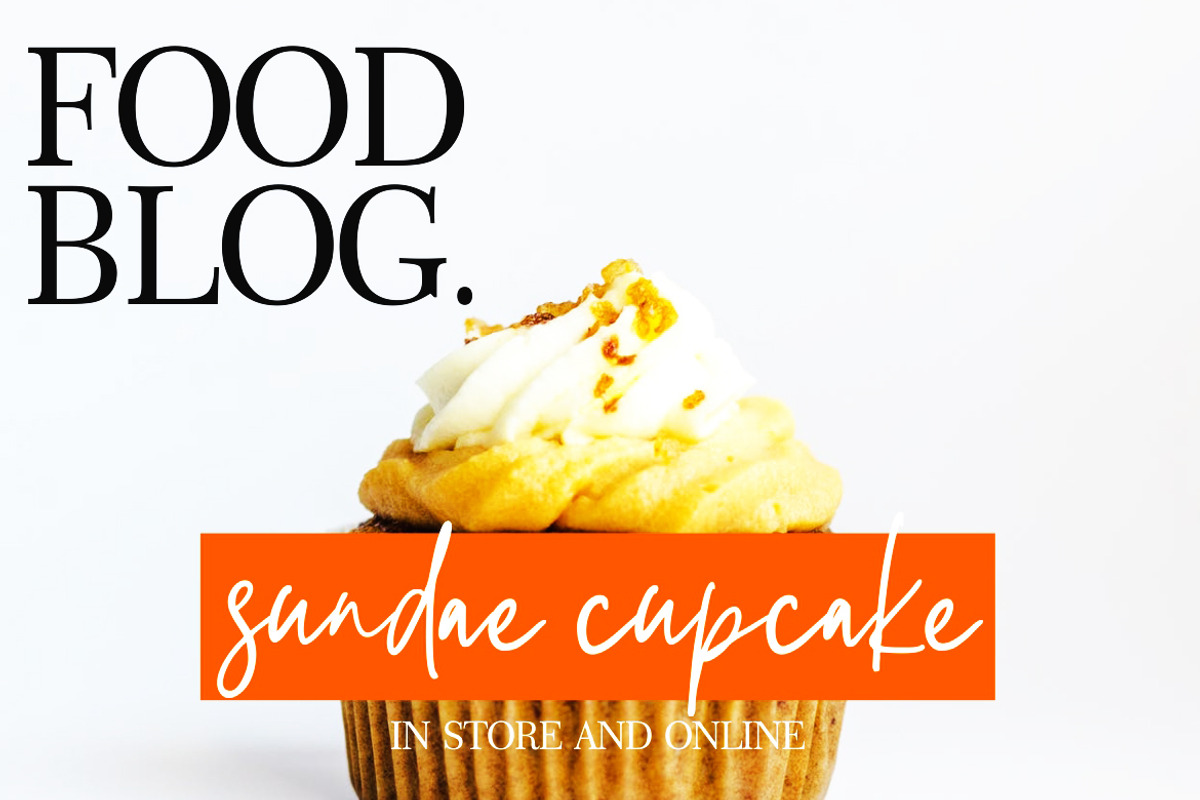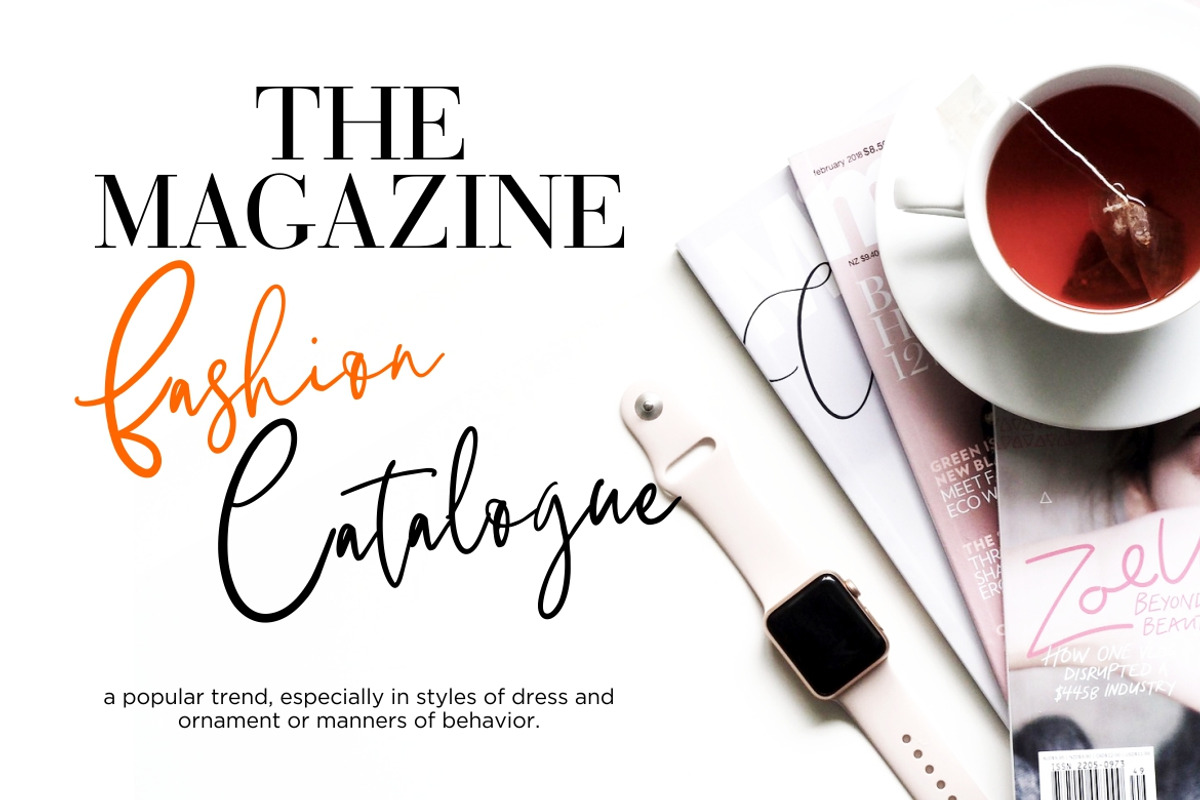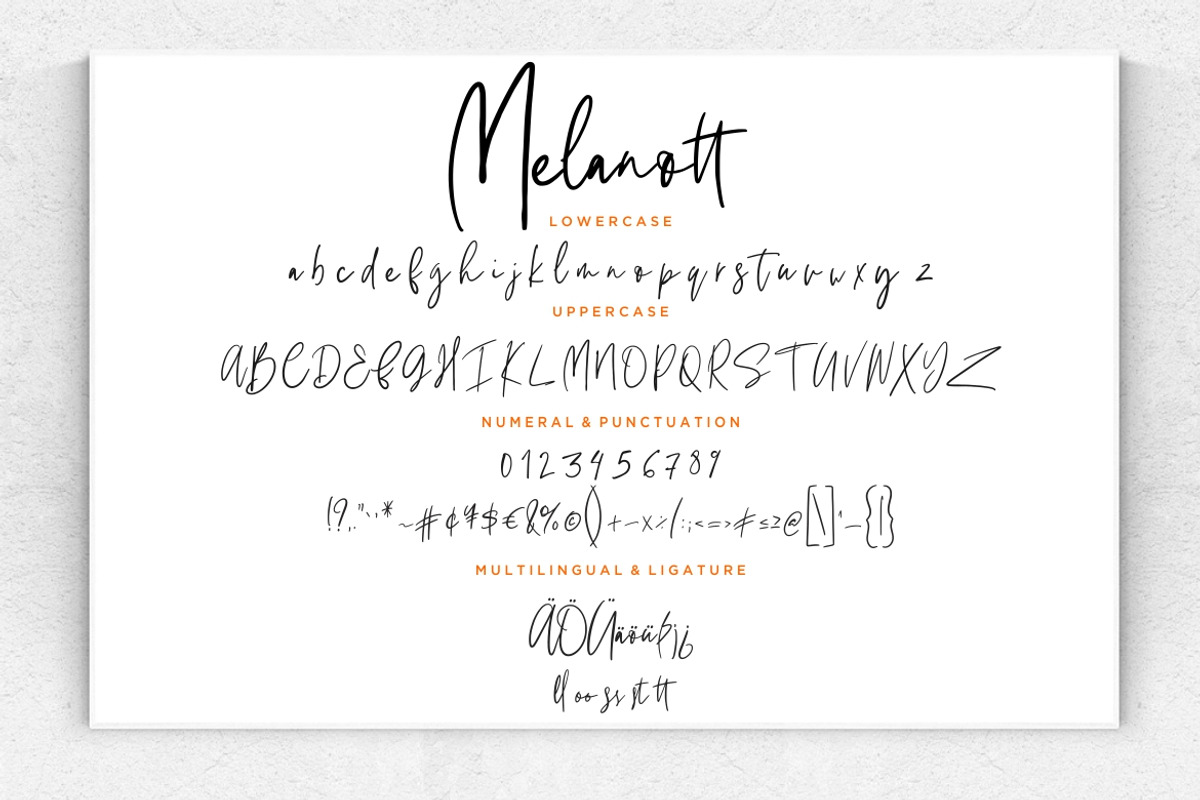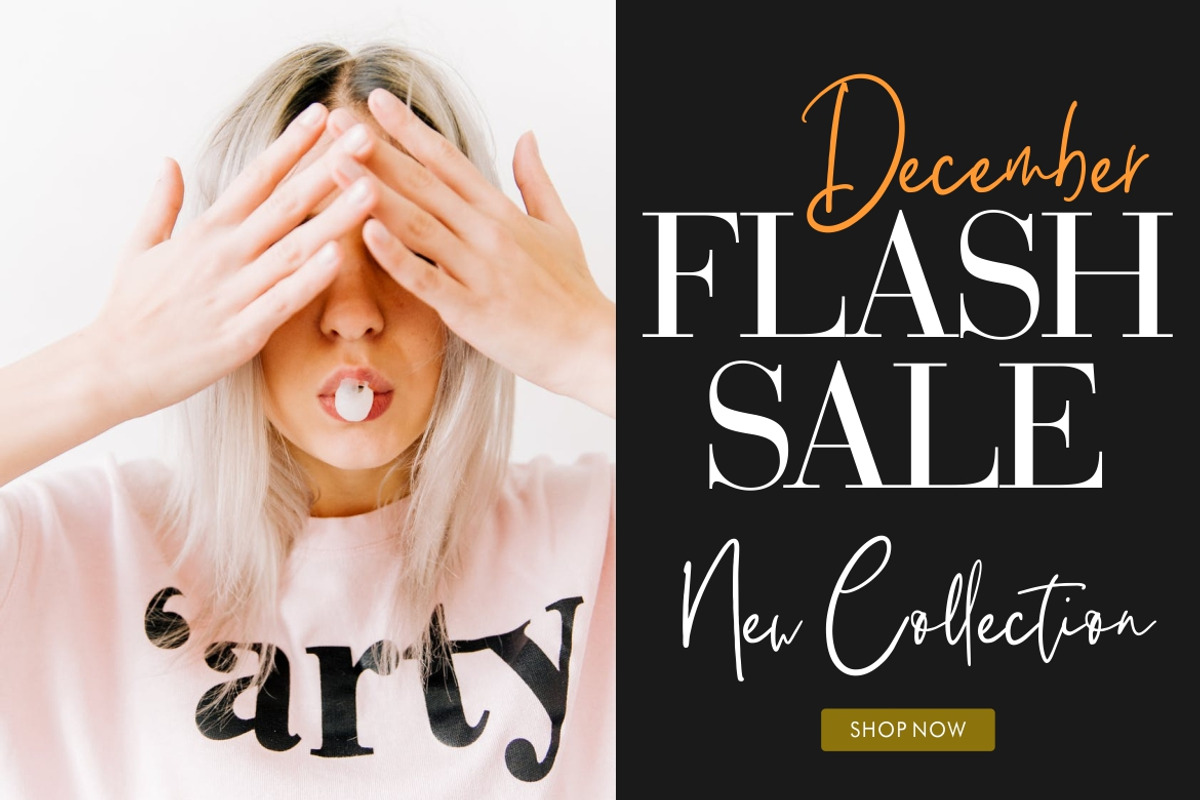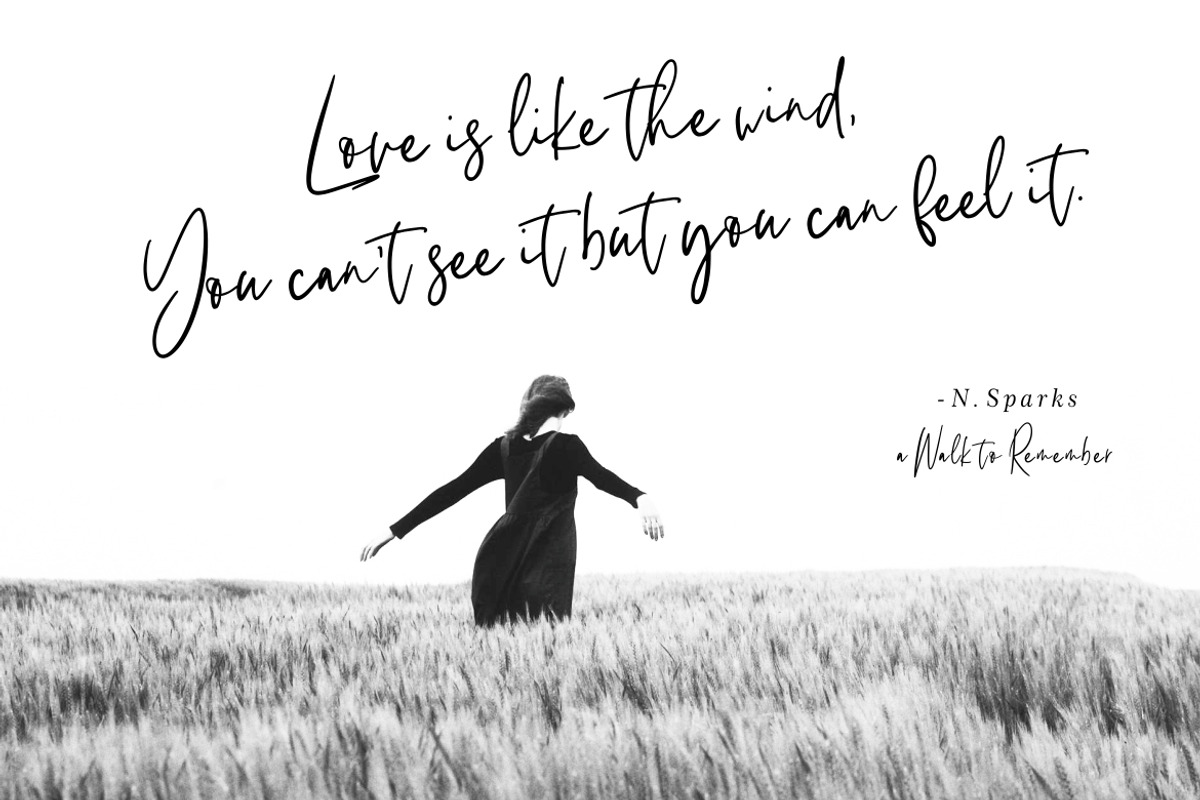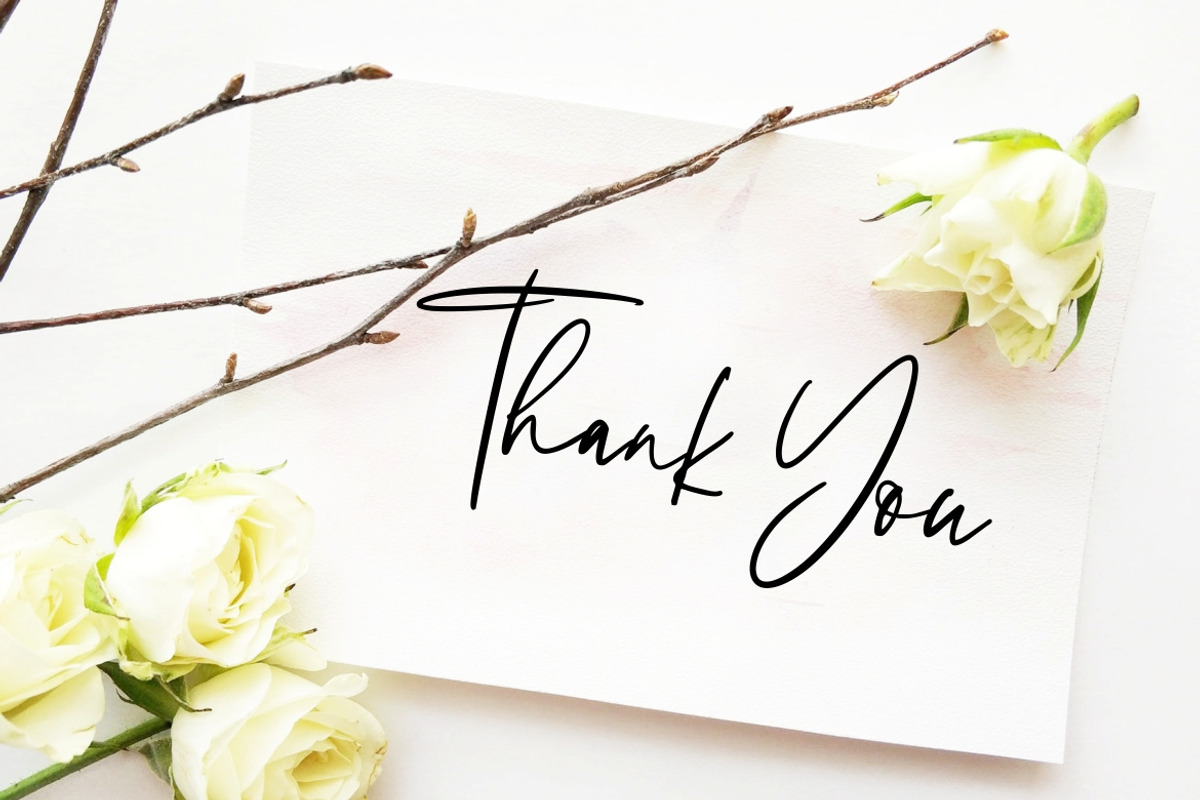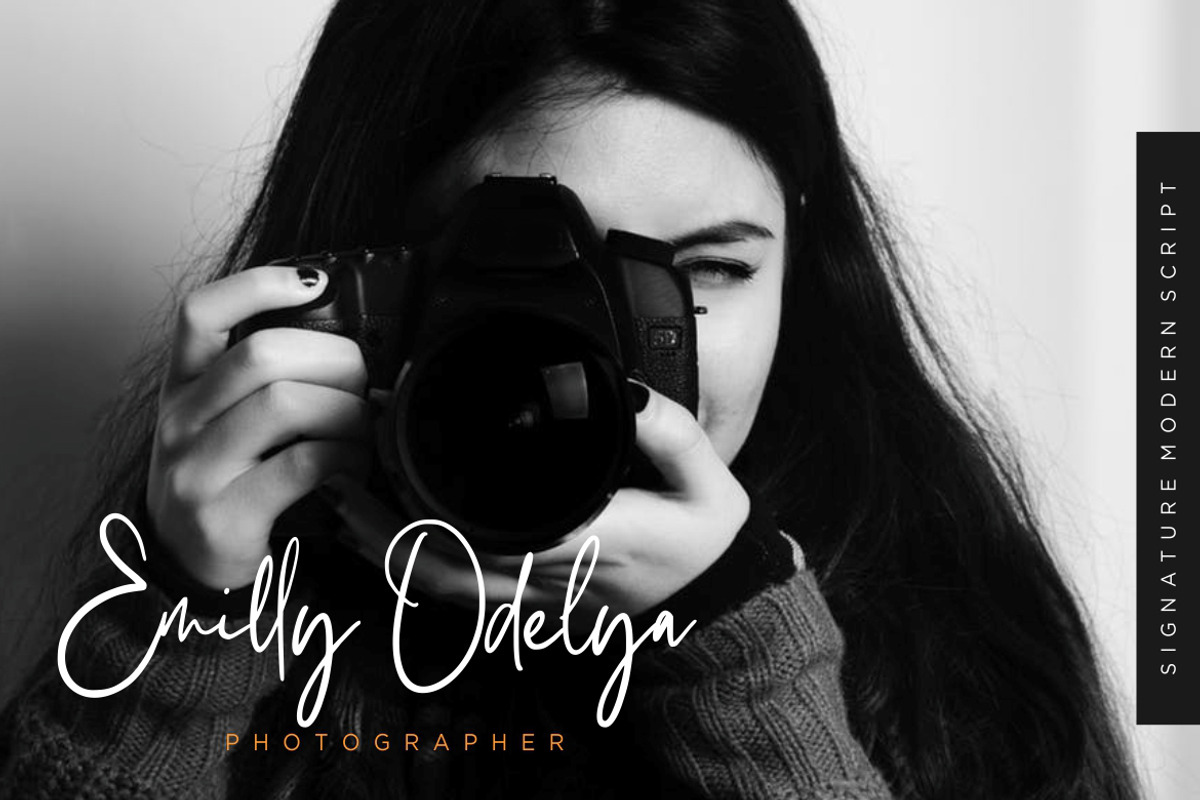
Melanott Signature Business Font
Melanott is handwritten font with modern signature script looks stylish and good for your projects.
Melanott is perfect for branding projects, logo, wedding designs, social media posts, advertisements, product packaging, product designs, label, photography, watermark, invitation, stationery and any projects that need handwriting taste.
Melanott Signature Business Font by Creatype Studio fits naturally into Branding, posters, packaging, typography.